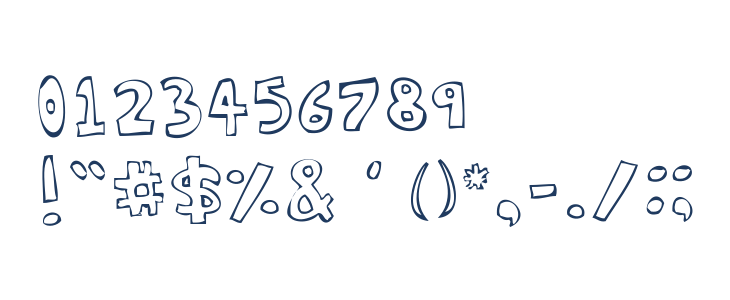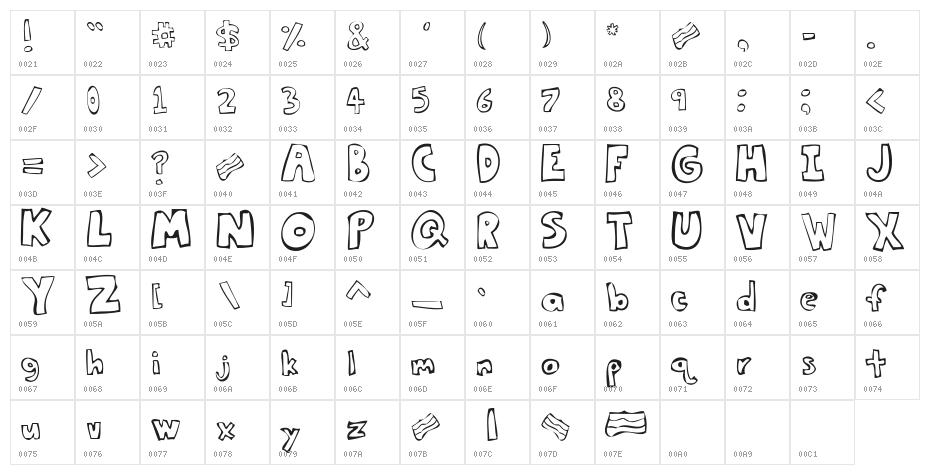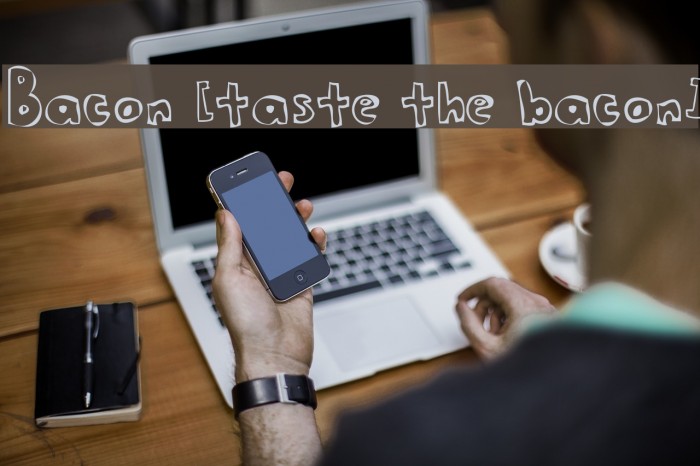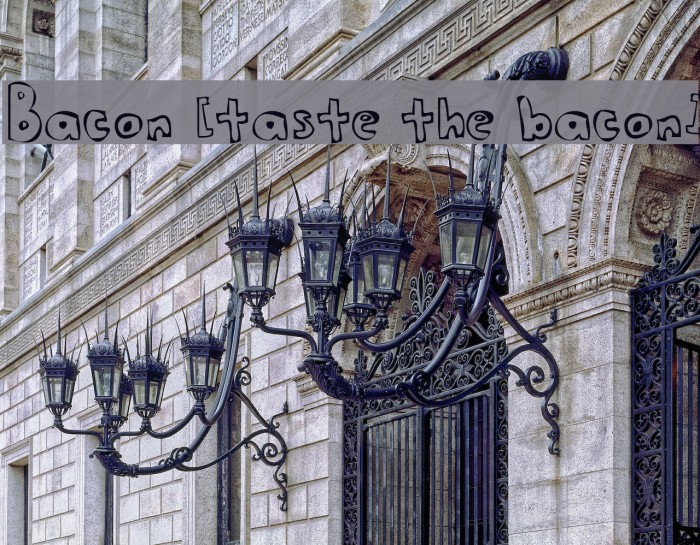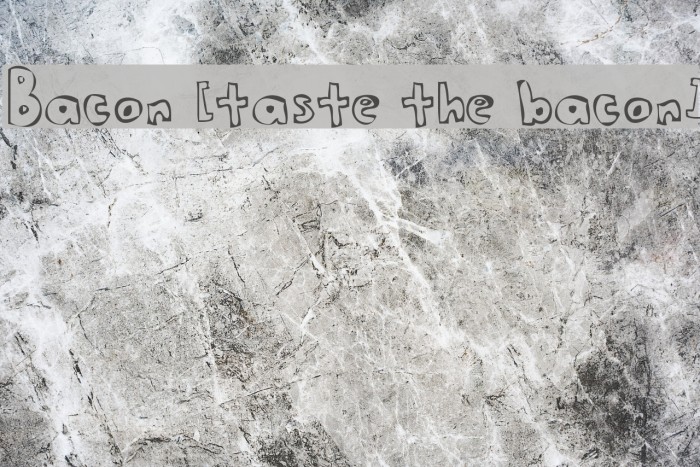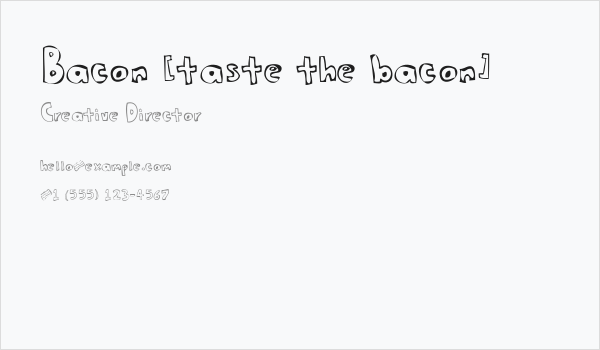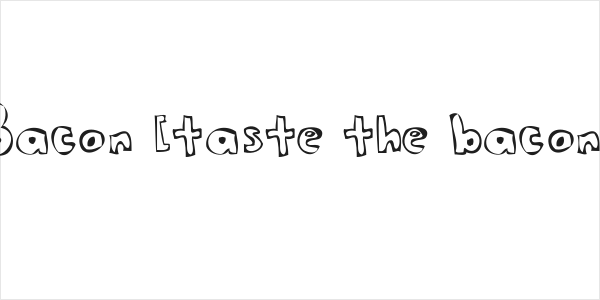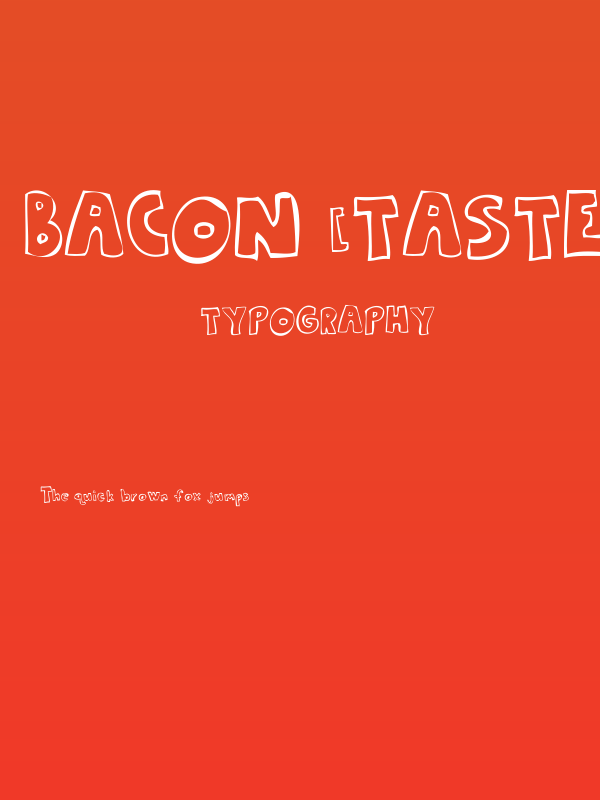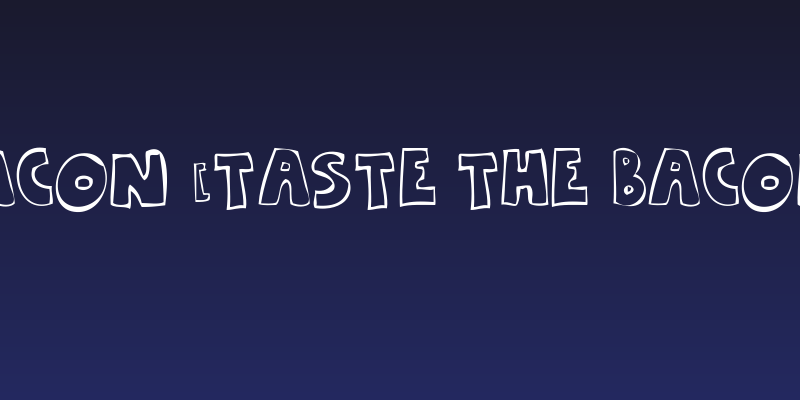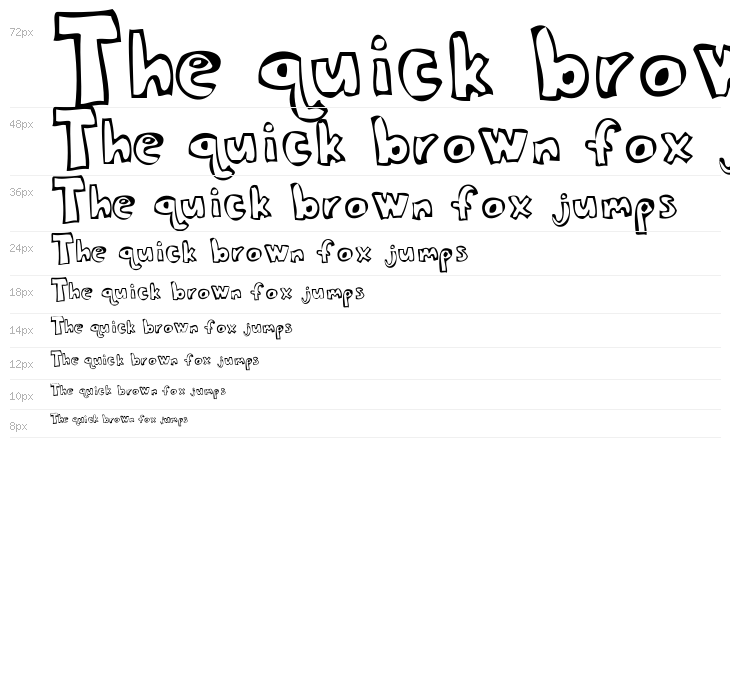
Bacon [taste the bacon] Font
Bacon [taste the bacon] Description
This playful and whimsical font features bold, cartoon-like characters with a hand-drawn appearance. Each letter has a unique, slightly irregular shape, adding to its charm and informal style. The strokes are thick and rounded, giving a friendly and approachable feel. The font includes both uppercase and lowercase letters, numerals, and a variety of special characters. Its quirky design makes it ideal for projects that require a fun and lighthearted touch.
| Proposed Projects | Ideal for children's books, comic strips, playful branding, and party invitations. |